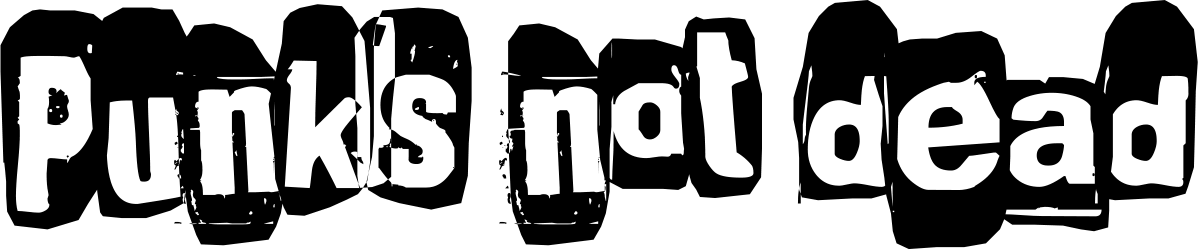
Punk’s not dead Font
Designed byP Joks
This fun, stylish font is perfect for any project you have in mind! Whether you’re looking to create amazing covers and logos, or simply want to add some creativity to your text, Punk’s not dead font is the way to go. So, go ahead and add this destroy font to your collection today!